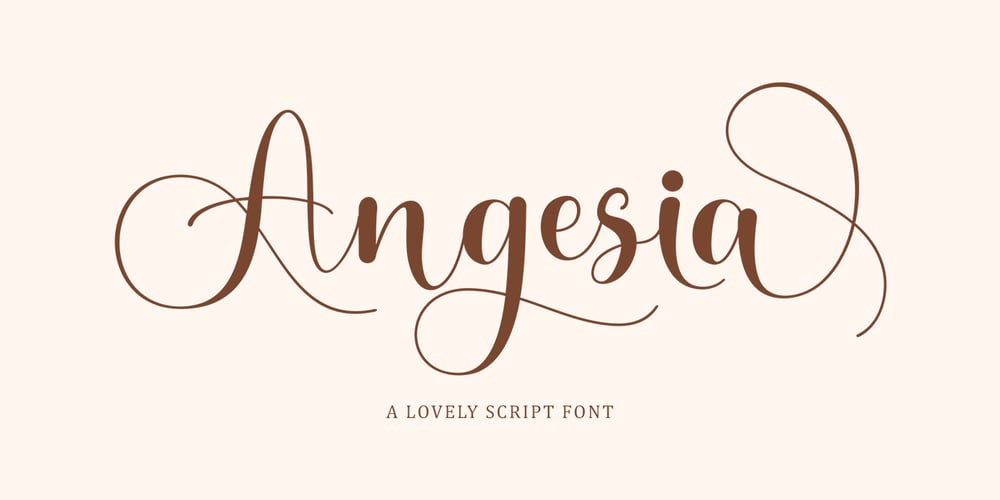
Angesia Font Family was designed by Faqihuddin Ilza and published by Crowntype Studio. Angesia contains 3 styles and family package options. Angesia is a script type family of four fonts. It is inspired by Lovely Fonts and has a soft and welcoming look. Angesia can be used for branding, packaging and wherever you need a script font that is easy to read and smooth. Angesia has many ties, strokes, and alternative characters that will make your designs unique and beautiful.You can also purchase Angesia as a Font Family and adjust the weight of Angesia seamlessly between Italic and Bold weights. Note that you need design software that supports the Font Family.Thank You…